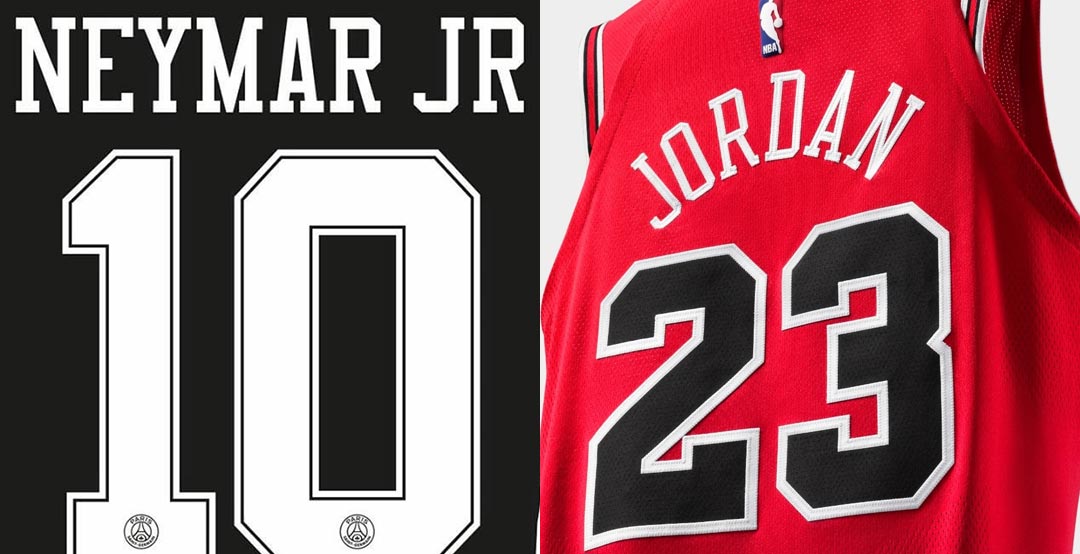
Michael Jordan Chicago Bulls Inspired - Jordan Paris Saint-Germain 18-19 Champions League Kit Font Released
Jordan Brand and Paris Saint-Germain will release the first-ever Jordan football kits this month, set to be used in the 2018-19 UEFA Champions League. The Jordan x PSG Champions League 18-19 kits have been already leaked various times, and now we get the first look at the numbers of the Jordan x Paris Saint-Germain 18-19 jersey.
In celebration of the 20th anniversary of Michael Jordan's "Last Shot" against the Jazz during the 1998 NBA Finals, Nike released a commemorative Bulls jersey for the occasion earlier this year.
Jordan PSG 2018-2019 Champions League Jersey Names & Numbers
The special Paris Saint-Germain 18-19 Champions League typeface is directly inspired by the jersey font of Chicago Fire used 20 years ago in 1998, when Michael Jordan had is famous "Last Shot" against the Jazz during the 1998 NBA Finals.
The PSG Jordan typeface is white / black or black / white on the kits. The lower part shows the PSG logo.
Paris Saint-Germain will use the special font in all 2018-19 European matches, jut as the kit.